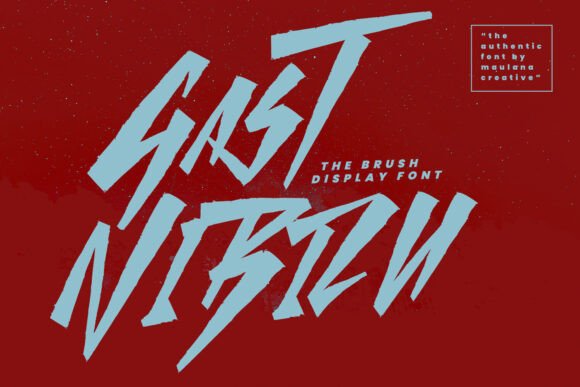
Gast Nibizu Font: Elevate Your Designs with an Authentic Brush Handcrafted Feel
In the world of digital design, fonts play a crucial role in conveying the tone and personality of a brand. With the vast array of fonts available, it can be challenging to find one that stands out and adds a unique touch to your designs. This is where the Gast Nibizu Font comes in – a beautifully crafted brush font that can give your designs an authentic, handcrafted feel.
What is Gast Nibizu Font?
Gast Nibizu Brush Font is a carefully designed font that mimics the look and feel of traditional brush calligraphy. With its unique, hand-painted strokes, this font is perfect for adding a personal touch to your designs. Whether you’re working on a logo, typography quotes, website headers, or branding materials, Gast Nibizu Font is an excellent choice.
Design Applications of Gast Nibizu Font
Gast Nibizu Font is a versatile font that can be used in a variety of design applications, including:
- Signature and Stationery: Add a personal touch to your letters, invitations, and business cards with Gast Nibizu Font.
- Logo Design: Create a unique and memorable logo for your brand with this beautiful brush font.
- Typography Quotes: Make your quotes stand out with Gast Nibizu Font’s elegant and handcrafted feel.
- Website Header: Elevate your website’s design with a stunning header that showcases Gast Nibizu Font.
- Branding: Use Gast Nibizu Font to create a consistent brand image across all your marketing materials.
Benefits of Using Gast Nibizu Font
So, why choose Gast Nibizu Font for your designs? Here are some benefits of using this beautiful brush font:
- Unique and Authentic Look: Gast Nibizu Font offers a distinctive, handcrafted feel that sets it apart from other fonts.
- Highly Versatile: This font can be used in a variety of design applications, from logos to website headers.
- Elegant and Sophisticated: Gast Nibizu Font adds an air of elegance and sophistication to your designs.
- Easy to Read: Despite its unique, hand-painted strokes, Gast Nibizu Font remains easy to read and understand.
Tips for Using Gast Nibizu Font Effectively
To get the most out of Gast Nibizu Font, here are some tips to keep in mind:
- Use it Sparingly: Gast Nibizu Font is best used sparingly to add emphasis and create visual interest.
- Pair it with Other Fonts: Experiment with pairing Gast Nibizu Font with other fonts to create a unique and harmonious design.
- Adjust the Size and Color: Play around with different sizes and colors to find the perfect combination for your design.
- Experiment with Effects: Try adding effects like textures or gradients to give your Gast Nibizu Font design an extra boost.
Draw Inspiration from Gast Nibizu Font
Gast Nibizu Font is more than just a font – it’s a design inspiration. Here are some ways to draw inspiration from this beautiful brush font:
- Hand-Lettering: Study the art of hand-lettering to gain a deeper appreciation for the craftsmanship that goes into Gast Nibizu Font.
- Traditional Calligraphy: Explore traditional calligraphy techniques to understand the roots of Gast Nibizu Font.
- Street Art: Look to street art for inspiration on how to use bold, expressive typography to make a statement.
In conclusion, Gast Nibizu Font is a unique and versatile brush font that can add an authentic, handcrafted feel to your designs. With its elegant and sophisticated look, this font is perfect for a variety of design applications, from logos to website headers. By following the tips outlined above and drawing inspiration from Gast Nibizu Font, you can create stunning designs that stand out from the crowd.